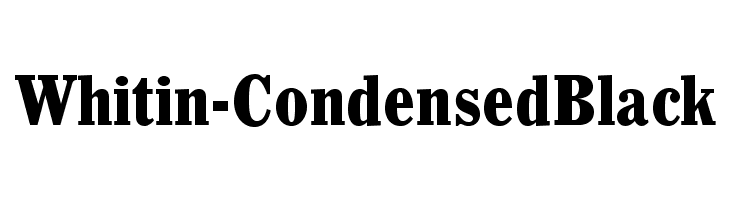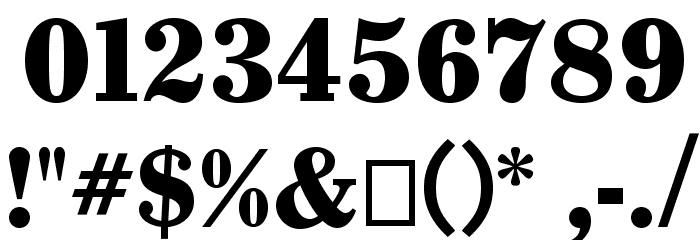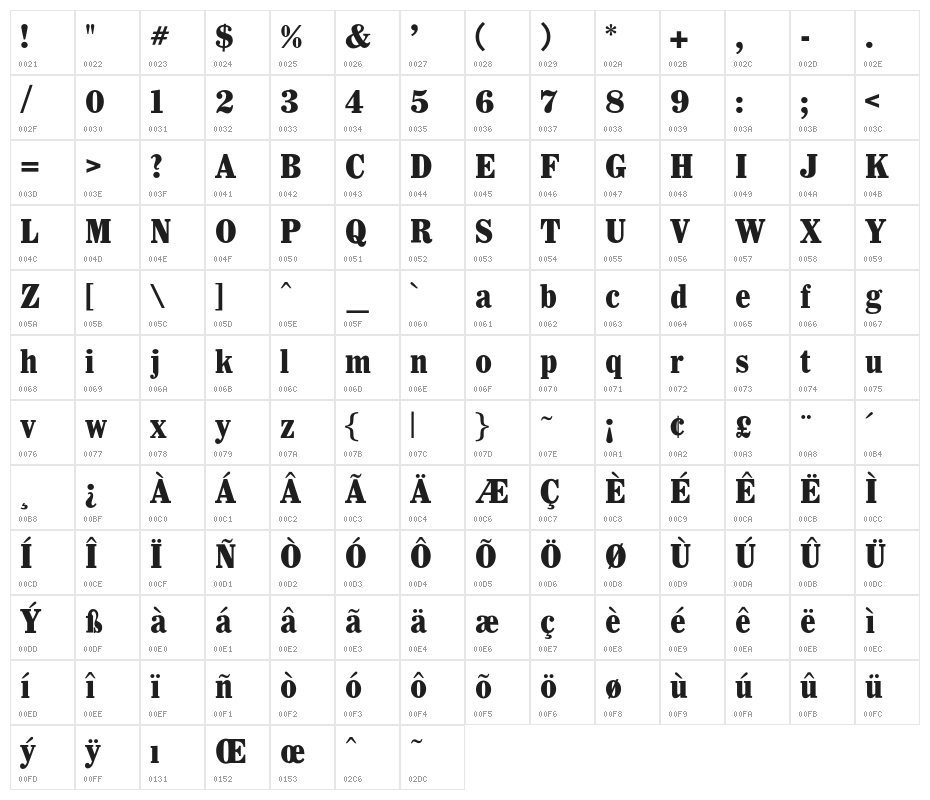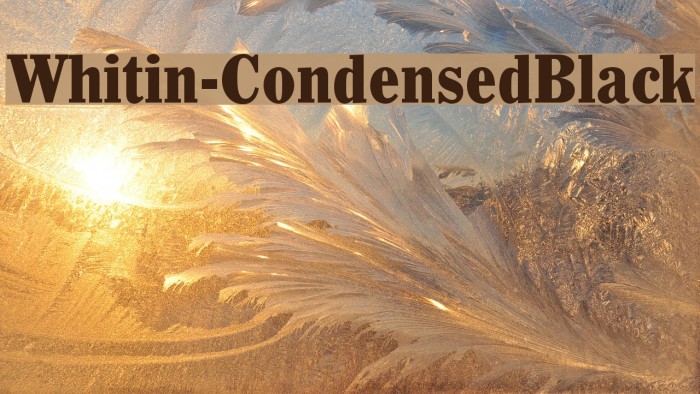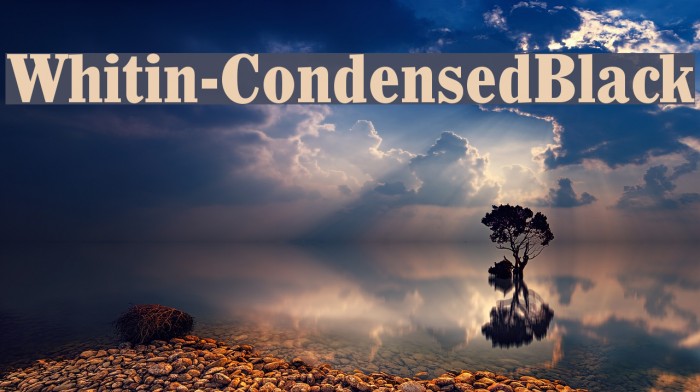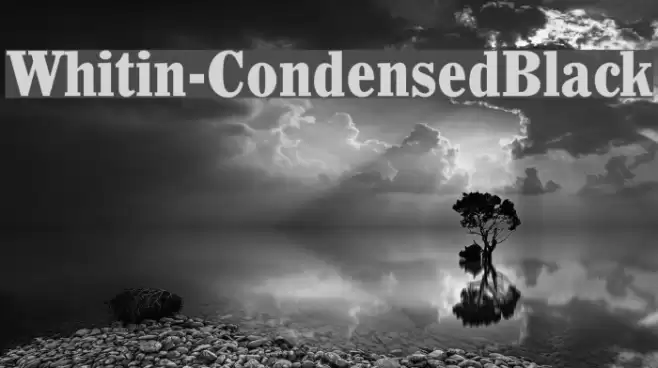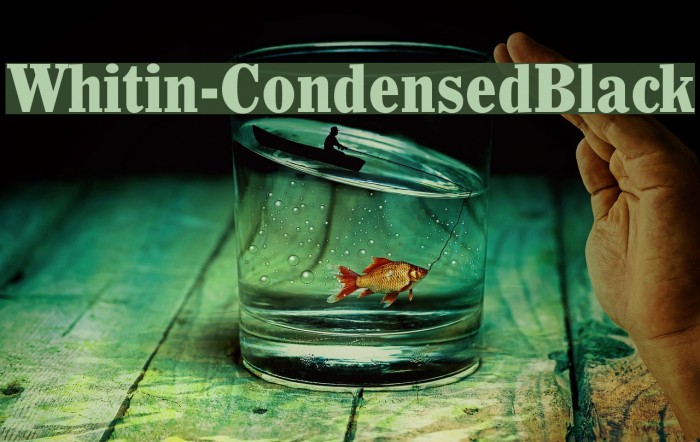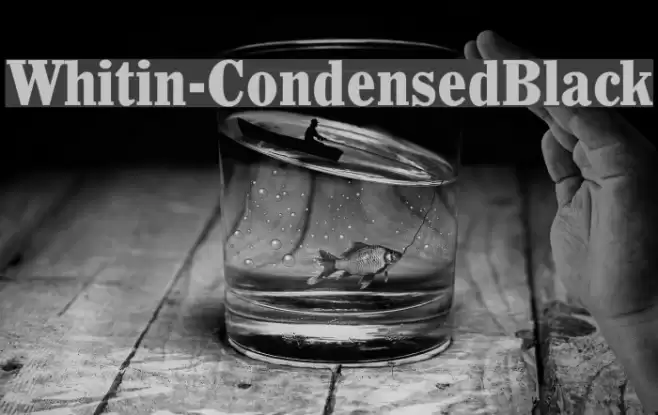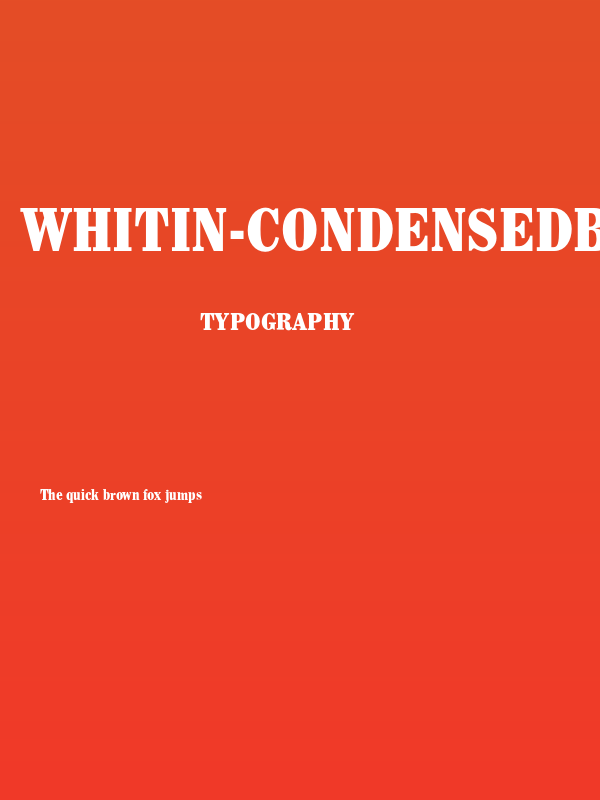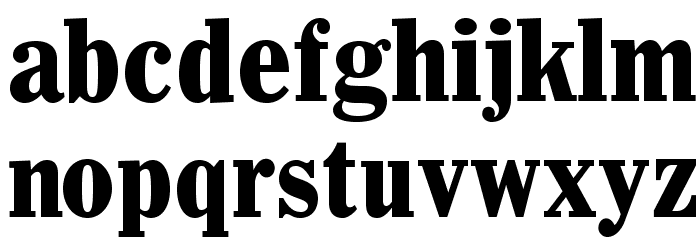
Whitin-CondensedBlack Font
Whitin-CondensedBlack Description
This font exhibits a bold and commanding presence with its thick, sturdy strokes and condensed letterforms. The serif design adds a touch of classic elegance, making it suitable for impactful headlines and titles. The uppercase letters are particularly striking, with a strong vertical emphasis and minimal spacing between characters, enhancing its compact appearance. The lowercase letters maintain a consistent weight, ensuring readability while preserving the bold aesthetic. Numbers and special characters are equally robust, providing a cohesive look across all elements.
| Proposed Projects | Ideal for headlines, posters, branding materials, and any project requiring a bold, impactful typeface. |